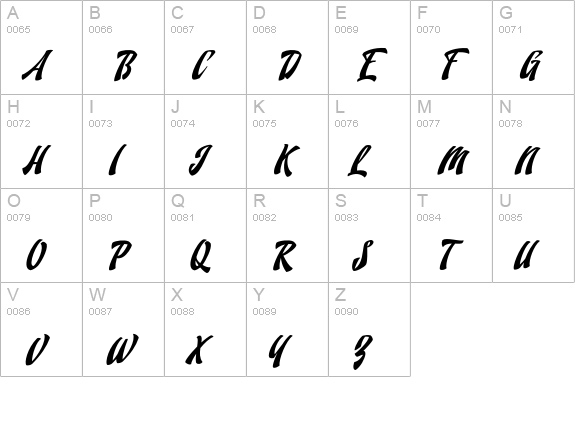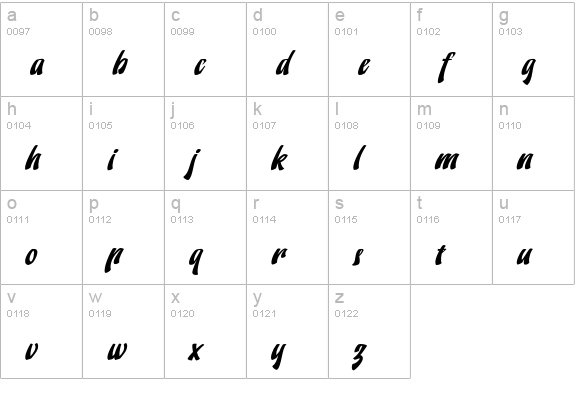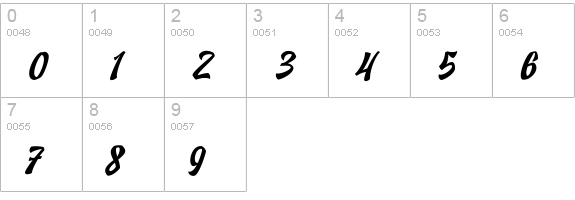
Doedel Alternate 3 Multiple font is a unique and versatile typeface that is sure to make your designs stand out. With its intricate details and stylish letterforms, this font is perfect for adding a touch of elegance to any project. Whether you're creating a logo, poster, or website, Doedel Alternate 3 Multiple font will give your work a professional and polished look. The best part is that this font is completely free to download at FontsMarket.com. So, you can easily access this beautiful typeface and use it in your projects without any cost. Don't miss out on the opportunity to enhance your designs with the stunning Doedel Alternate 3 Multiple font - download it for free today!